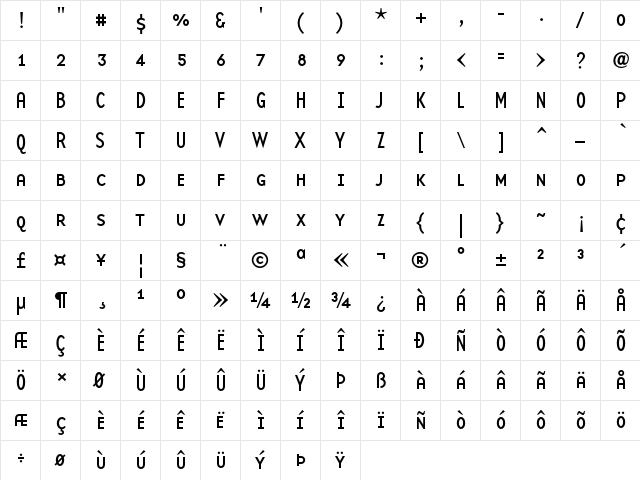
BaseTwSansSmallCaps Regular
Design Context for BaseTwSansSmallCaps Typeface
BaseTwSansSmallCaps offers clean, dependable letterforms without strong stylistic allegiance, making it a practical choice for designers who need flexibility.